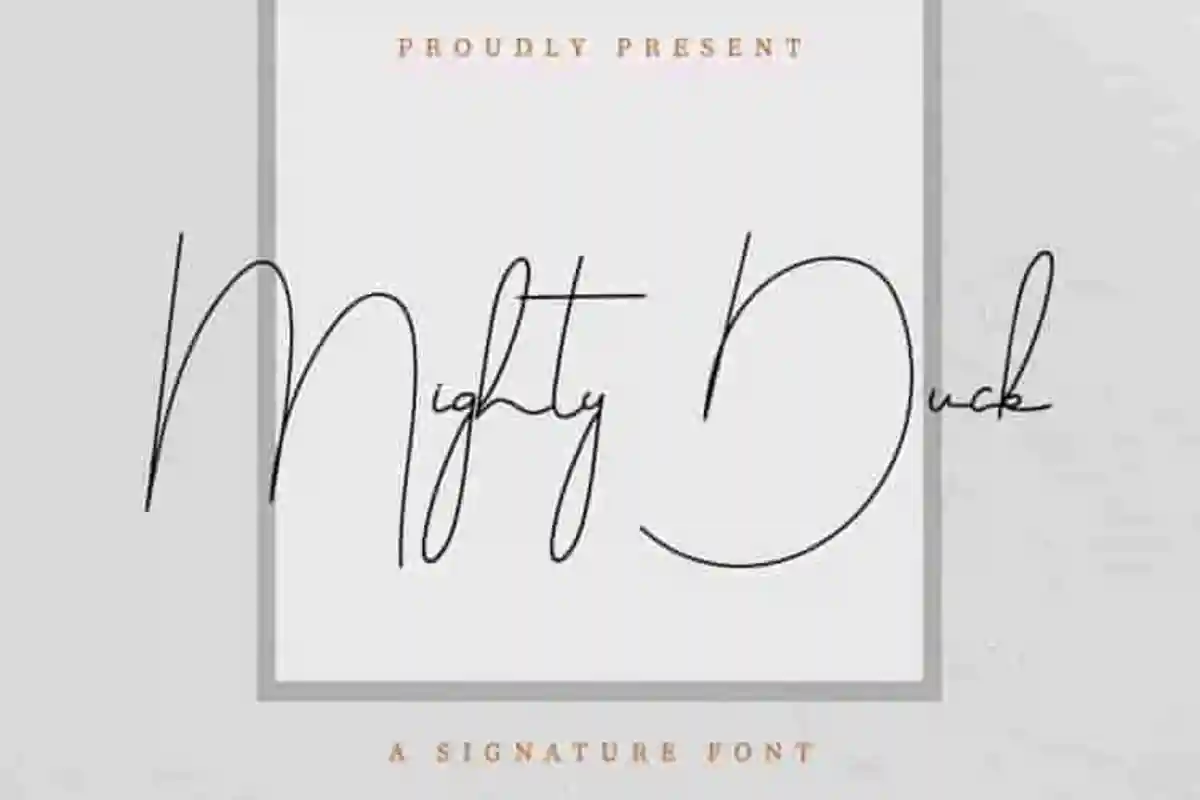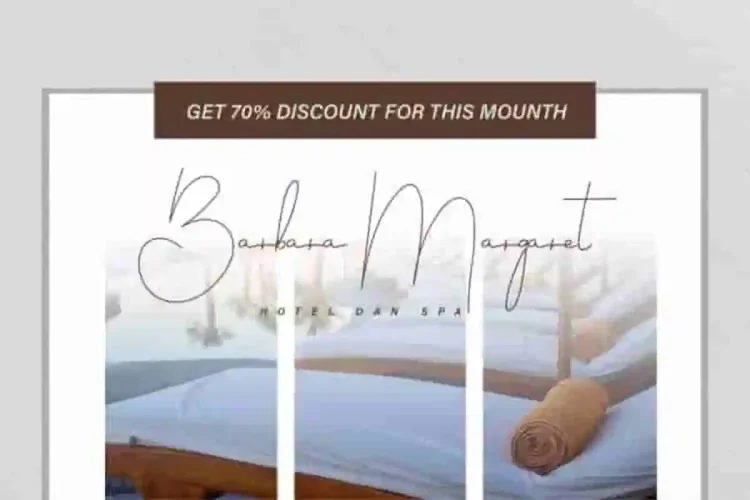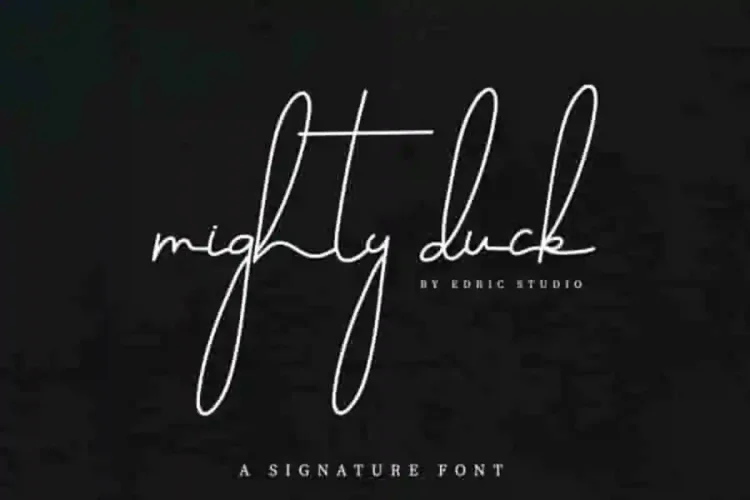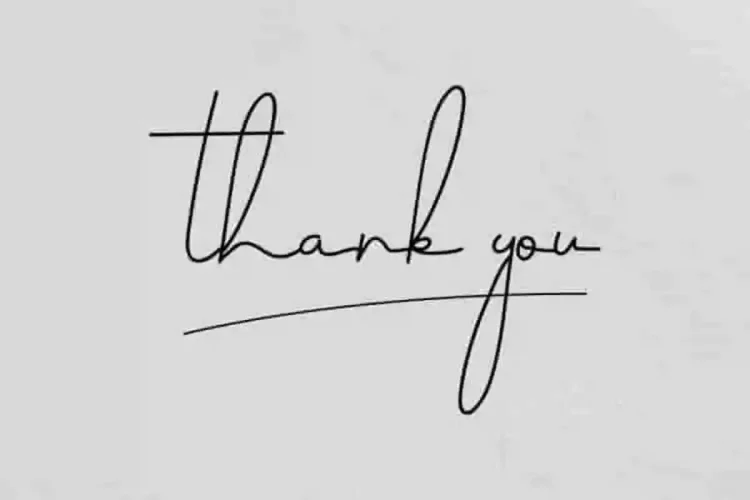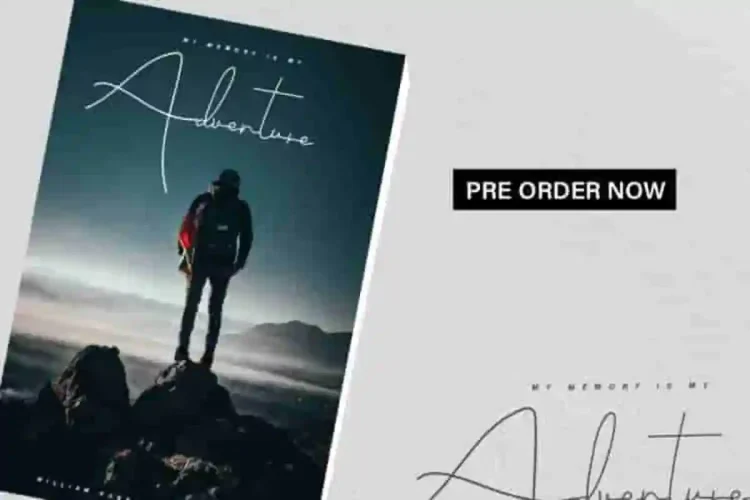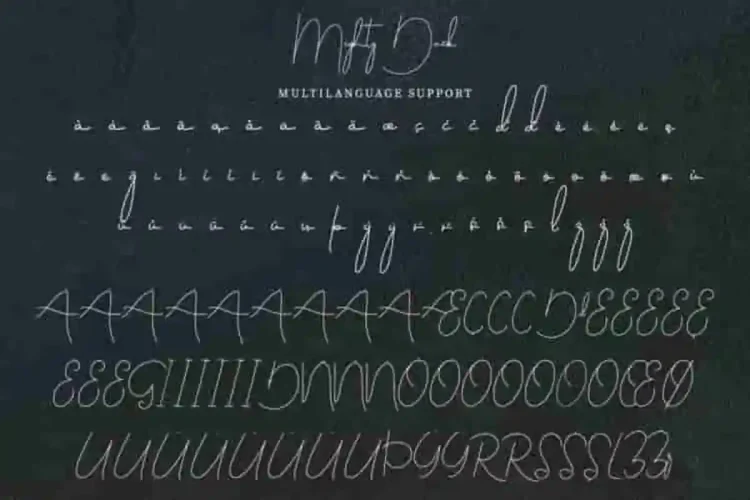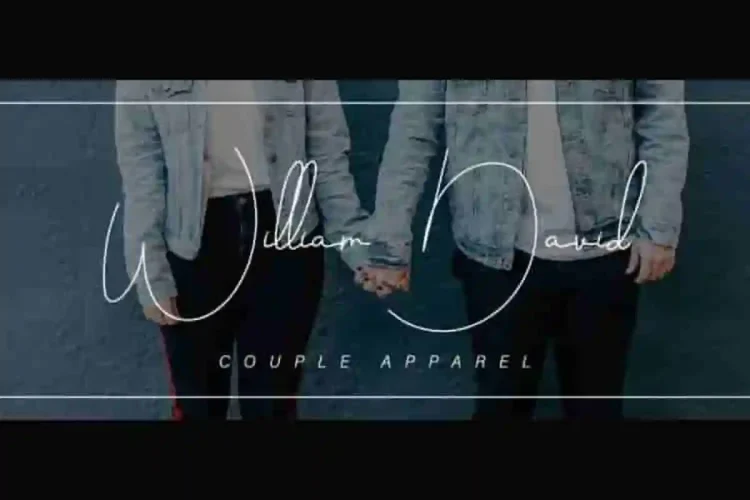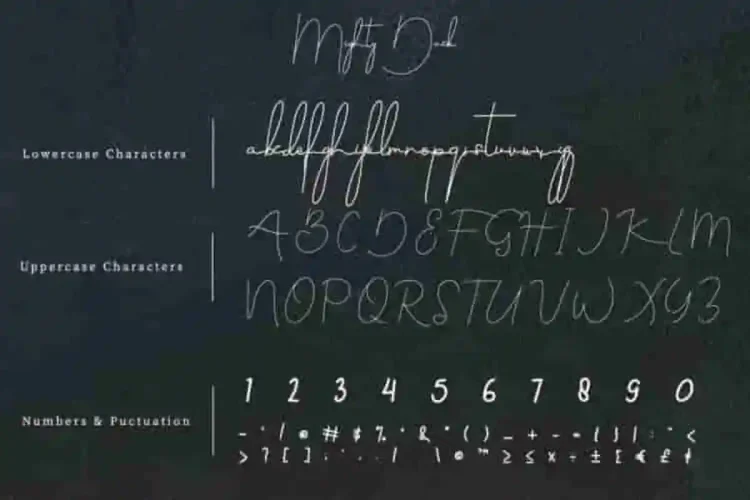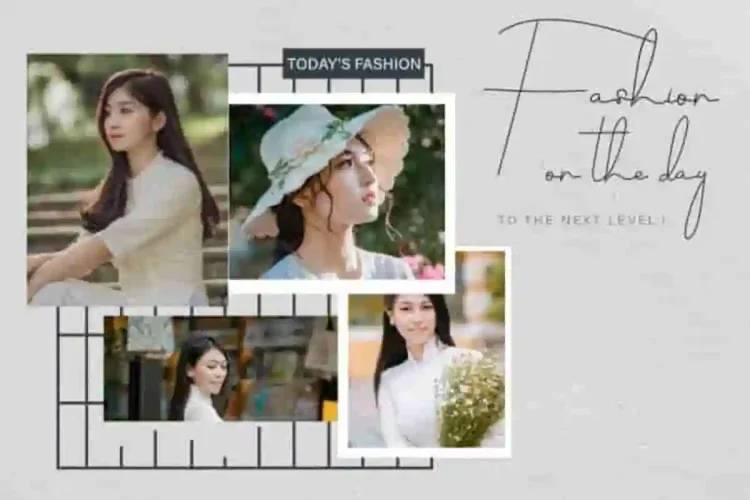
Mighty Duck Calligraphy Signature Font
Hello, please meet The newest font from our lovely artist : Mighty Duck Calligraphy Signature
This is a Signature calligraphy font, handcrafted from our Studio here in, Indonesia. The artists/designers of this beautiful tyeface is Saila and Suci.
Mighty Duck Calligraphy Signature Font is an exclusive signature script typeface with pen style. This font has a stunning characters set, perfectly managed with well spaced and kerning.
Mighty Duck Calligraphy Signature Fontwill be great for any projects including : branding, logo, stationery, business card, signage, flyer, brochure etc. Almost all industries will be match for this typeface: wedding, events, real estate, architect, law firm, florist, gardening, makeup artist, travel, hotel, musician etc.